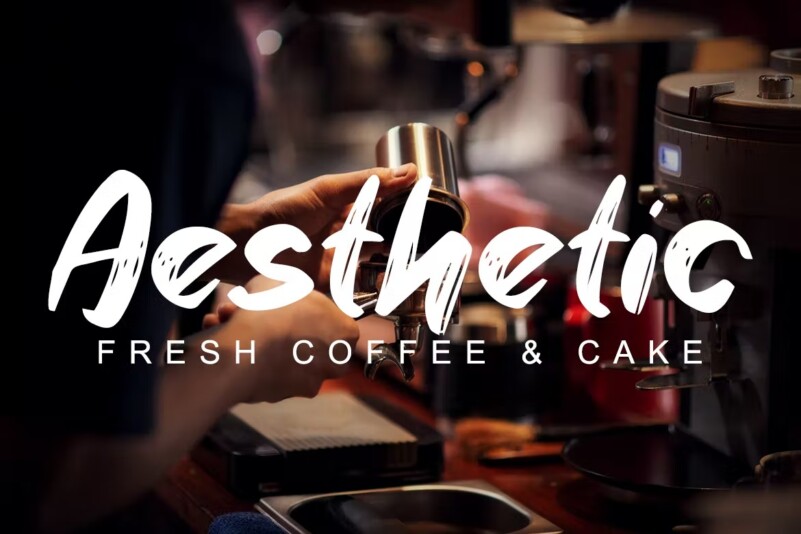
Lezlie Font
Lezlie Font is a brush-style font that includes standard upper and lower case characters, numbers, punctuation marks, and multilingual support. This typeface captures the essence of masculinity with its strong lines and bold strokes. Its versatility and flexibility make it suitable for different design styles, and its textured feel adds depth and character to any project.